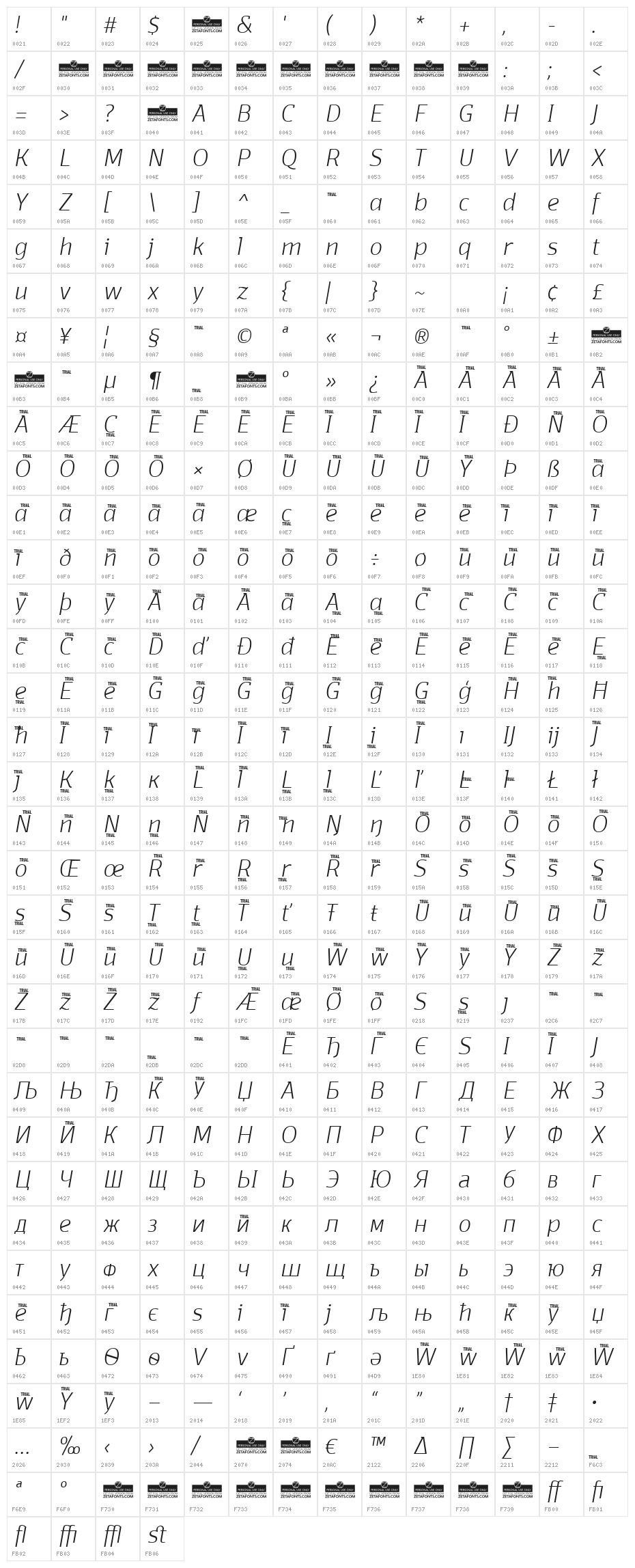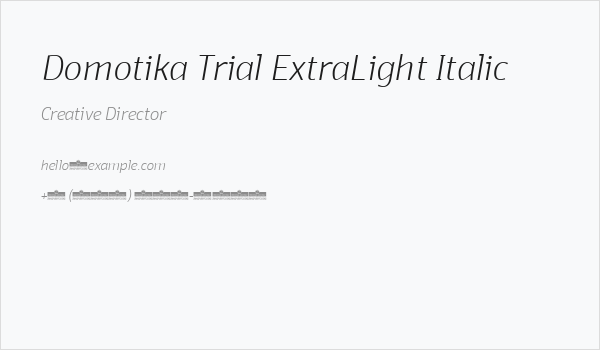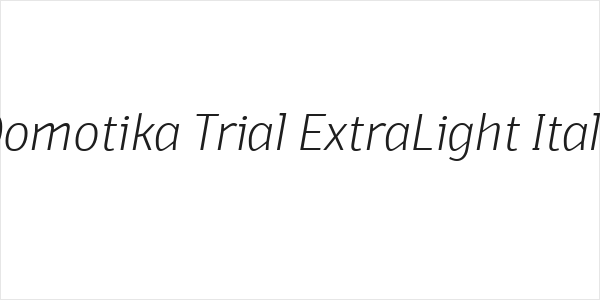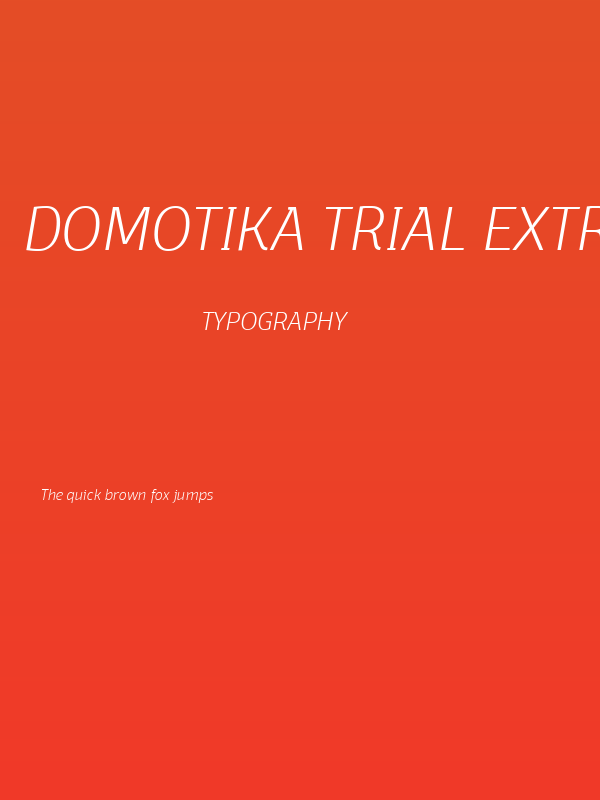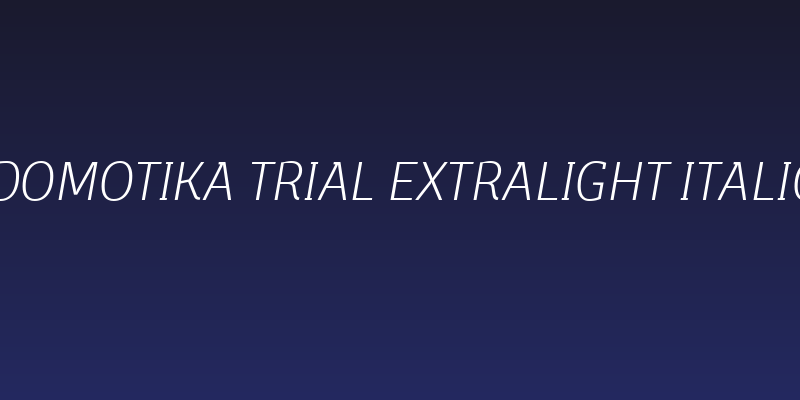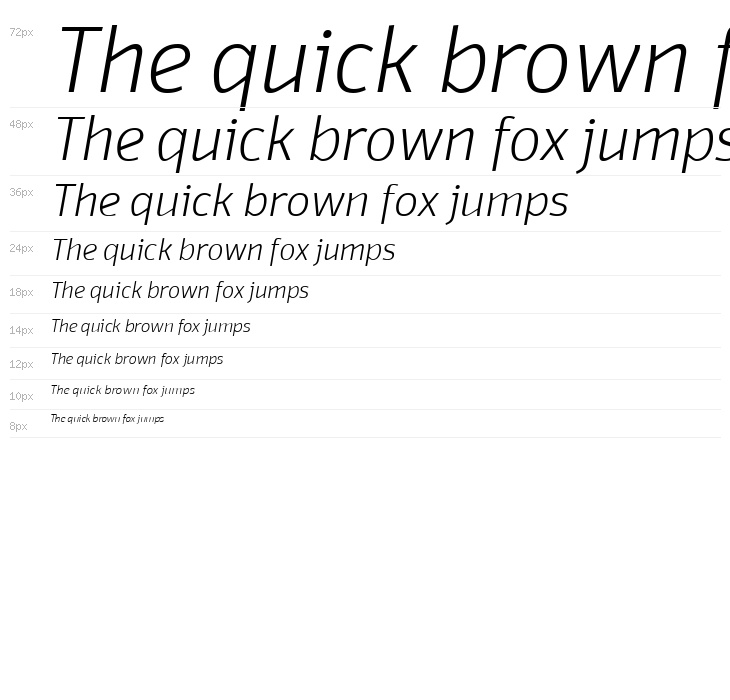
Domotika Trial ExtraLight Italic Font
Domotika Trial ExtraLight Italic Description
This font features a sleek and modern design with a distinct italic style. The characters are elegantly elongated, providing a sense of motion and fluidity. The strokes are thin and consistent, contributing to an overall light appearance. The uppercase and lowercase letters maintain a harmonious balance, while the numerals and special characters are crafted with precision. This typeface exudes a contemporary aesthetic, making it suitable for a variety of design applications.
| Proposed Projects | Ideal for branding, editorial design, and digital interfaces where a modern and sophisticated look is desired. |